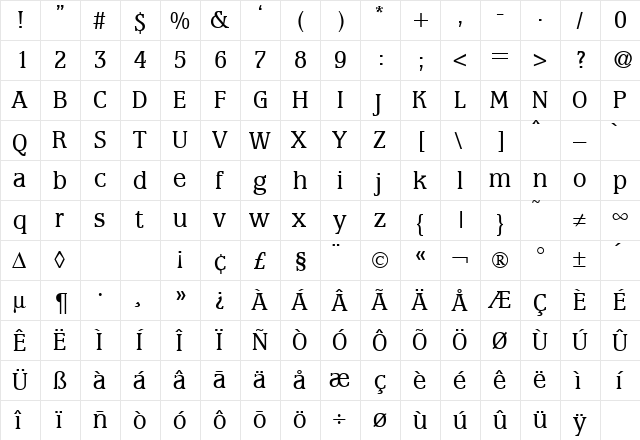
Marburg DB Regular
Design Context for Marburg DB Typeface
Marburg DB is a composed and adaptable typeface that performs quietly and consistently across a wide range of design contexts.